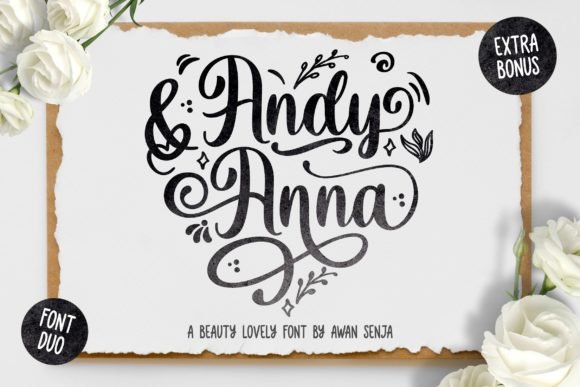
Have you ever stumbled upon the perfect font, and suddenly your entire design concept comes alive? That’s exactly what happened to many designers when they discovered the enchanting Andy & Anna Font. This elegant and sweet script is a masterclass in romance, adding a touch of whimsy to any project that demands a special something.
Whether you’re designing a wedding invitation, a love letter, or a whimsical children’s book, the Andy & Anna Font is the perfect companion. Its versatility and charm make it an invaluable asset for designers seeking to add a unique touch to their work. With its ability to evoke emotions and create a sense of nostalgia, this font is a must-have in any designer’s toolkit.
Andy & Anna Font Key Features
- Character Set: The font includes a comprehensive character set, covering multiple languages, including Latin, Cyrillic, and Greek alphabets, making it suitable for global applications.
- Unique Characteristics: The font features a unique blend of modern and vintage elements, with intricate details and ornate flourishes, making it perfect for adding a touch of elegance and sophistication to designs.
- Script and Ligature Support: Andy & Anna Font includes a wide range of script and ligature options, allowing for seamless connections between letters and creating a more natural, handwritten feel.
- Font Weight and Style: The font is available in multiple weights, from Light to Bold, and various styles, including Regular, Italic, and Script, providing designers with a versatile range of options to suit different design needs.
Designer Review: Andy & Anna Font
First off, let me say that Andy & Anna Font has some great qualities that make it a solid addition to any designer’s toolkit. ✨ The font’s unique blend of modern and classic elements makes it perfect for projects that require a touch of sophistication. ✨ The font’s readability is also top-notch, making it suitable for body text as well as headlines. ✨ Additionally, the font’s versatility allows it to work well in both digital and print applications.
- Unique blend of modern and classic elements
- High readability
- Versatility in digital and print applications
- May not be as effective in extremely small font sizes
- Can feel a bit too ‘safe’ for projects that require bold statement-making
Overall, I’d say that Andy & Anna Font is a solid choice for designers looking for a reliable, versatile font. While it may not be the most exciting or bold option, it gets the job done and is easy to work with. I’d definitely recommend it for everyday design projects.
Here are some tips to help you get the most out of the Andy & Anna font:
- Use the font for titles and headings to create a visually appealing design.
- Pair the font with a clean and simple background to let the text stand out.
The Andy & Anna font is suitable for a variety of use cases, including:
- Blog posts and articles.
Alternatives to Andy & Anna Font for Designers
Lato Font is a clean and modern sans-serif font designed by Łukasz Dziedzic. It’s perfect for digital interfaces and branding materials. Lato is highly legible and works well in a variety of contexts, from body text to headings. Compared to Andy & Anna Font, Lato has a more minimalist and geometric feel, making it a great choice for modern designs.
Montserrat Font is a sans-serif font inspired by urban typography. It’s designed to be highly legible and versatile, making it suitable for a wide range of applications, from print to digital. Montserrat has a more dramatic feel compared to Andy & Anna Font, with a strong emphasis on geometric shapes and bold lines.